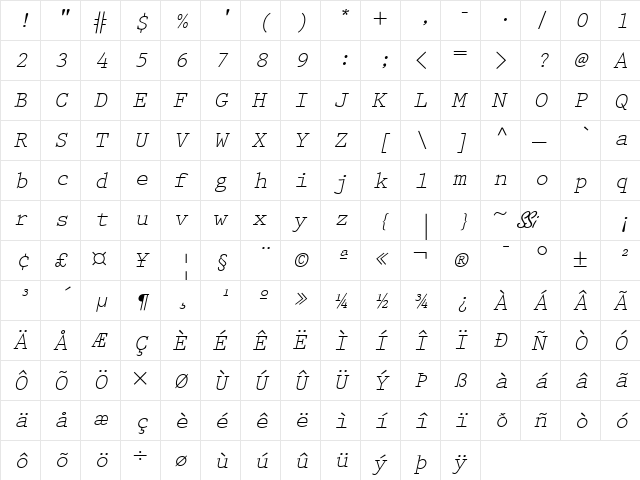
Keyboard Elite SSi Italic
Design Context for Keyboard Elite SSi Typeface
Keyboard Elite SSi offers clean, dependable letterforms without strong stylistic allegiance, making it a practical choice for designers who need flexibility. The dynamic lean of this cut emphasises speed and emphasis in any layout.